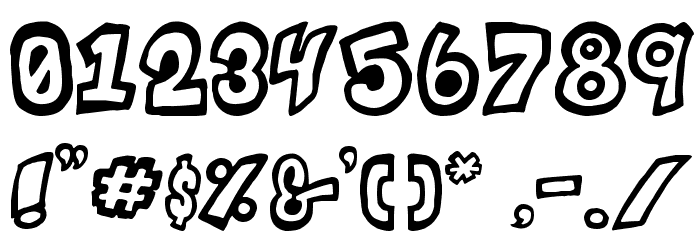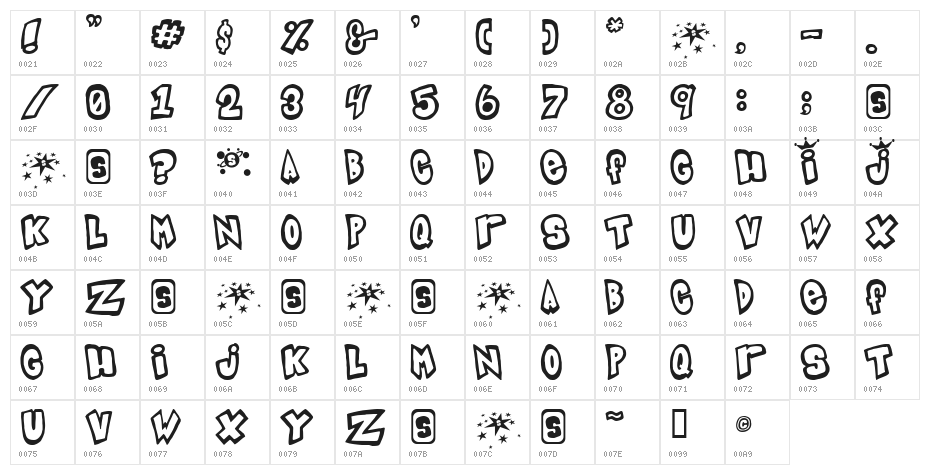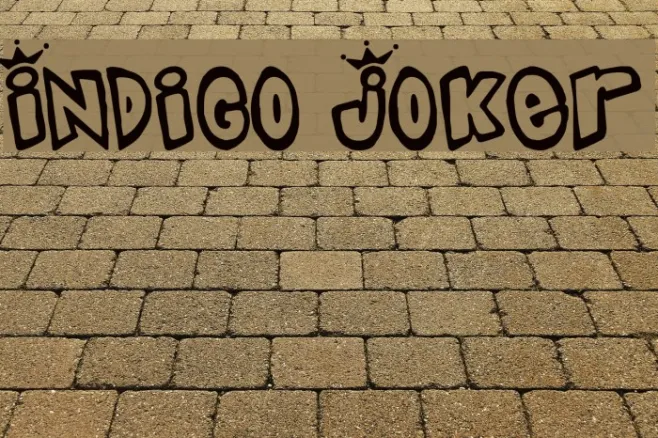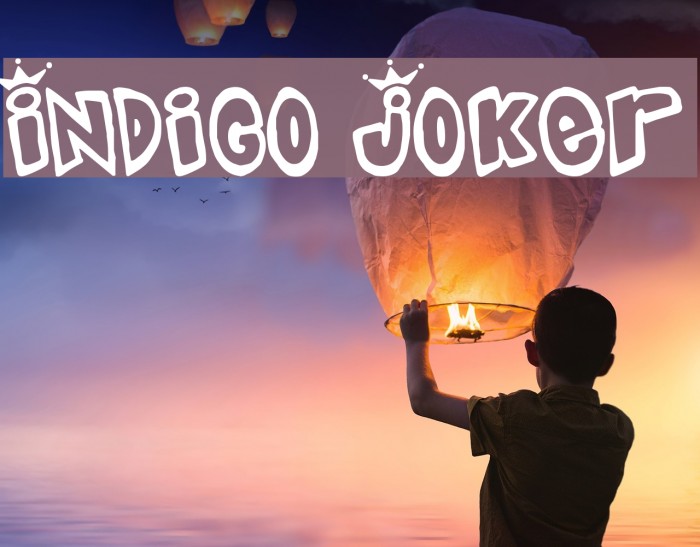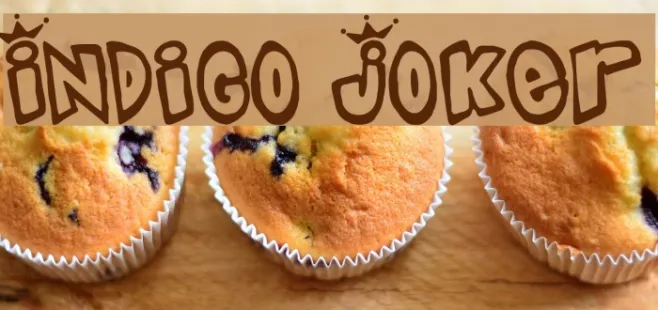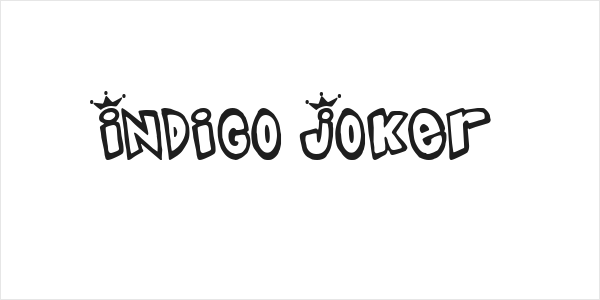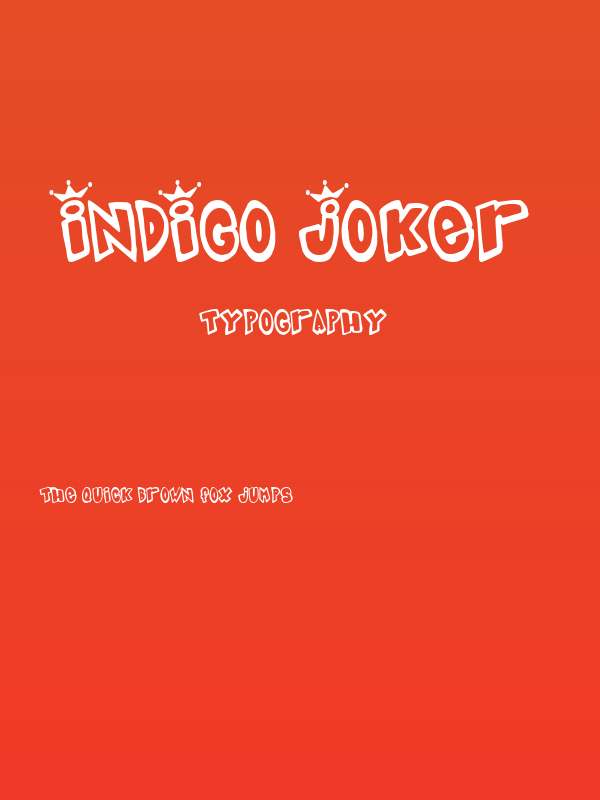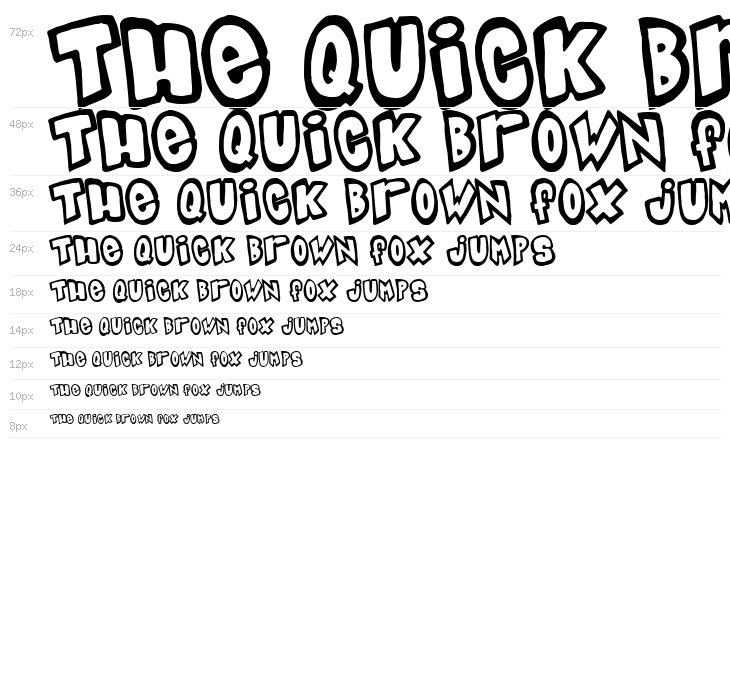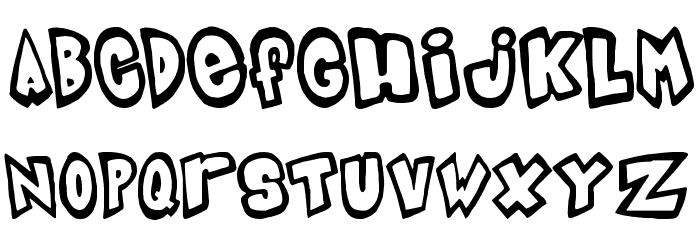
Indigo Joker Font
Indigo Joker Description
This playful and whimsical font features bold, cartoon-like characters with a hand-drawn appearance. Each letter is outlined with a thick black stroke, giving it a distinct and eye-catching look. The characters are slightly irregular, adding to the casual and fun vibe of the font. The uppercase and lowercase letters maintain a consistent style, with rounded edges and exaggerated curves. Numbers and special characters follow the same playful design, making this font perfect for creative and informal projects.
| Proposed Projects | Ideal for children's books, comic strips, playful branding, and party invitations. |